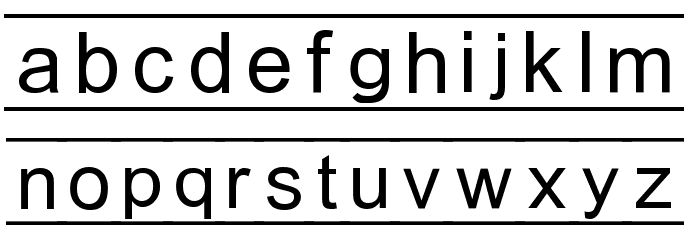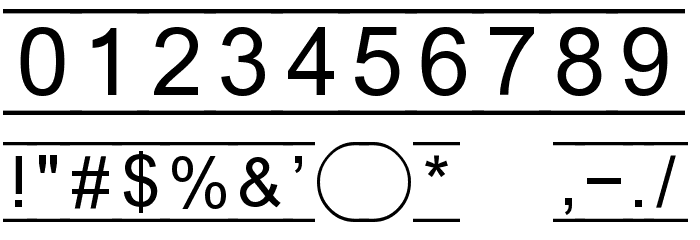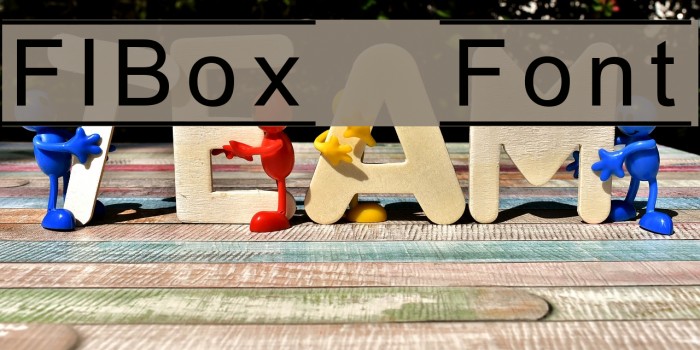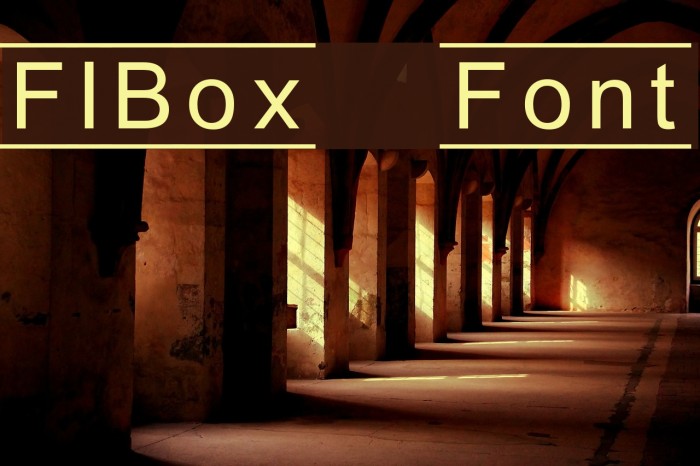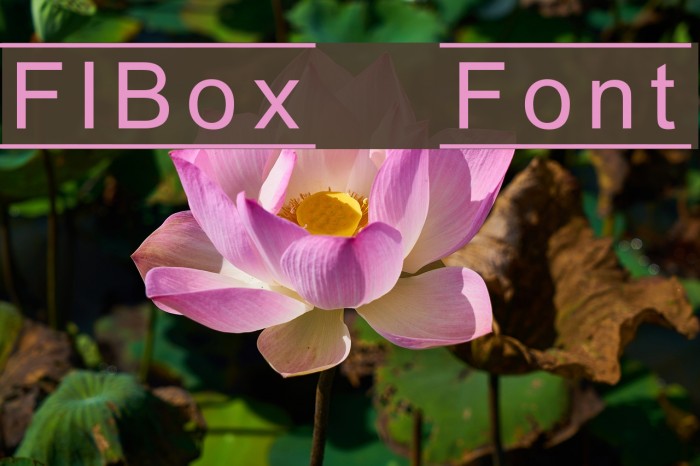
FIBox Font
This font features a clean and modern sans-serif style with uniform stroke widths, offering a straightforward and highly legible appearance. The characters are well-proportioned, with a balanced height and width that contribute to its readability. The uppercase letters are bold and commanding, while the lowercase letters maintain a consistent style that complements the uppercase. The numerals are clear and distinct, making them easy to read at a glance. Special characters are included, enhancing the font's versatility for various applications. The overall design is minimalistic, making it suitable for both digital and print media.
A modern, clean sans-serif font with uniform strokes and excellent readability.